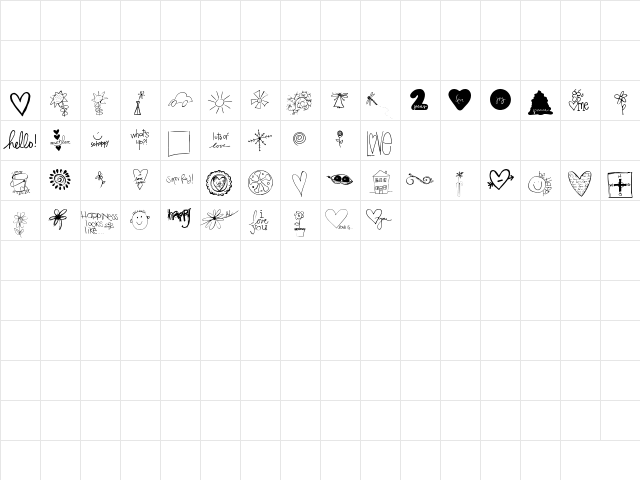
Complete 2Peas Garden Girl Dingbats Regular glyph index. Displaying only characters natively supported by 2Peas Garden Girl Dingbats Regular font.
2Peas Garden Girl Dingbats is a composed and adaptable typeface that performs quietly and consistently across a wide range of design contexts.
Who designed the 2Peas Garden Girl Dingbats Regular font?
This font was published by Two Peas in a Bucket. Check the technical specs section for copyright and designer details.